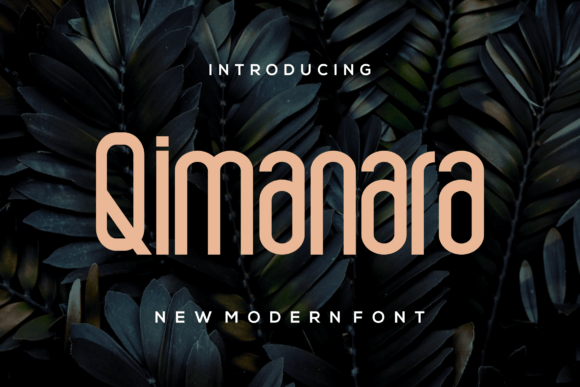
Are you looking for a font that exudes elegance, sophistication, and a touch of the extraordinary? Look no further than Qimanara, a modern sans serif font that will elevate your creative projects to new heights. With its graceful curves, elongated ascenders, and captivating descenders, Qimanara is not just a font—it's a masterpiece waiting to be unleashed.
Qimanara, a creation of the talented prayoga_std, was meticulously crafted to give life to your words, whether it's an intimate signature, a heartfelt letter, an unforgettable logo, or a captivating website header. Its versatility extends far beyond the written word, making it an ideal choice for stationery, wedding invitations, magazine covers, and even fashion designs.
But what truly sets Qimanara apart is its mastery over the letter "Y." Qimanara's "Y" is a thing of beauty, an elongated and graceful stroke that dances across the page, adding a touch of elegance and sophistication to every word it graces. Whether you're designing a logo, a personal brand, or a heartfelt message, Qimanara's "Y" will ensure that your words stand out, leaving an unforgettable impression.